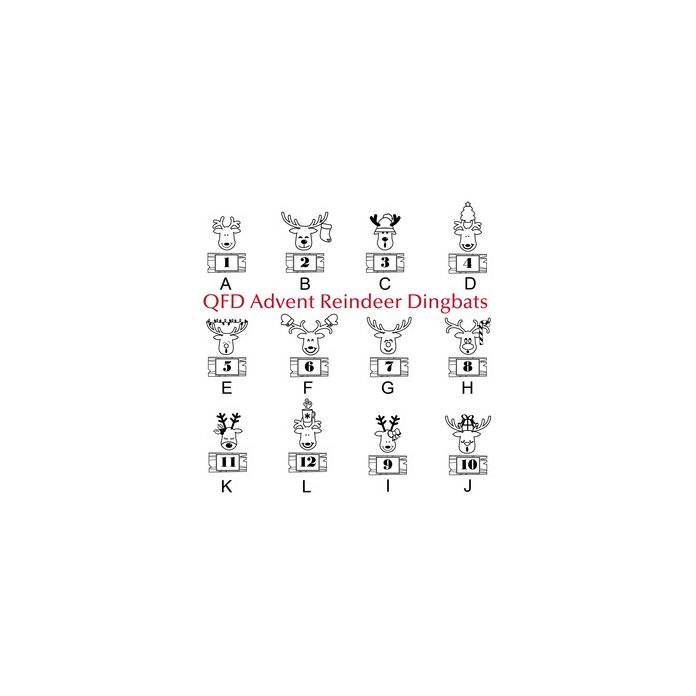
These reindeer have real personality! Use them at school, for teachers, on gifts and in scrapbooks. Make planner stickers and put them on the front of cards. Use them wherever your imagination takes you! If you have any questions, please feel free to contact me!